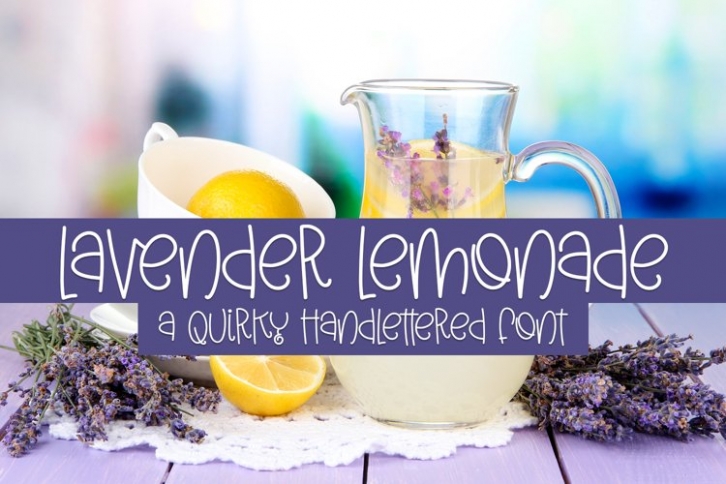
Lavender Lemonade is a trendy and unique font with an authentic style. It was designed by plusstore and it's a great choice for creative people who need such a font. It was released on July 8, 2021 and the file size is 3.81 MB. Lavender Lemonade will add an organic vibe to any design idea!